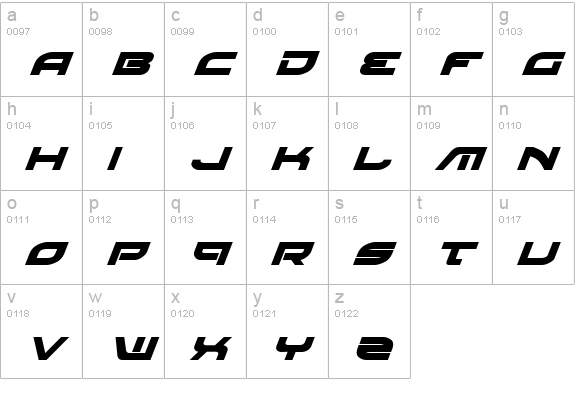
Battlefield Bold Italic is a strong, high-contrast, italic variant in the Battlefield typeface family \xE2\x80\x94 well suited to headlines, attention-grabbing titles, and strong calls-to-action.
Introducing Battlefield Bold Italic font - a powerful and dynamic typeface that exudes strength and confidence. With its bold strokes and slanted italics, this font is perfect for making a bold statement in your designs. Whether you're creating posters, headlines, or branding materials, Battlefield Bold Italic font will capture attention and leave a lasting impression. And the best part? Battlefield Bold Italic font is available for free download at FontsMarket.com. So you can elevate your designs without breaking the bank. Don't miss out on this versatile and eye-catching font - download Battlefield Bold Italic today and let your creativity shine!